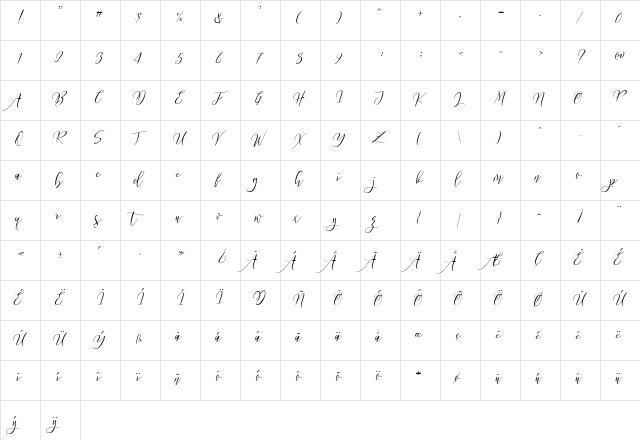
Frutilla Script Regular
| Foundry | Ianmikraz |
| Designer | Ianmikraz |
Design Context for Frutilla Script Typeface
Frutilla Script flows with the natural rhythm of handwritten lettering, making it ideal for designs that call for warmth and personal expression.
Font Pairing: Combine Frutilla Script with a simple geometric sans for maximum contrast — the tension between flowing curves and clean structure is a classic typographic pairing.
Pro Tip: Pair Frutilla Script with a clean sans-serif for supporting text. The contrast between fluid script and geometric structure creates an elegant typographic hierarchy.